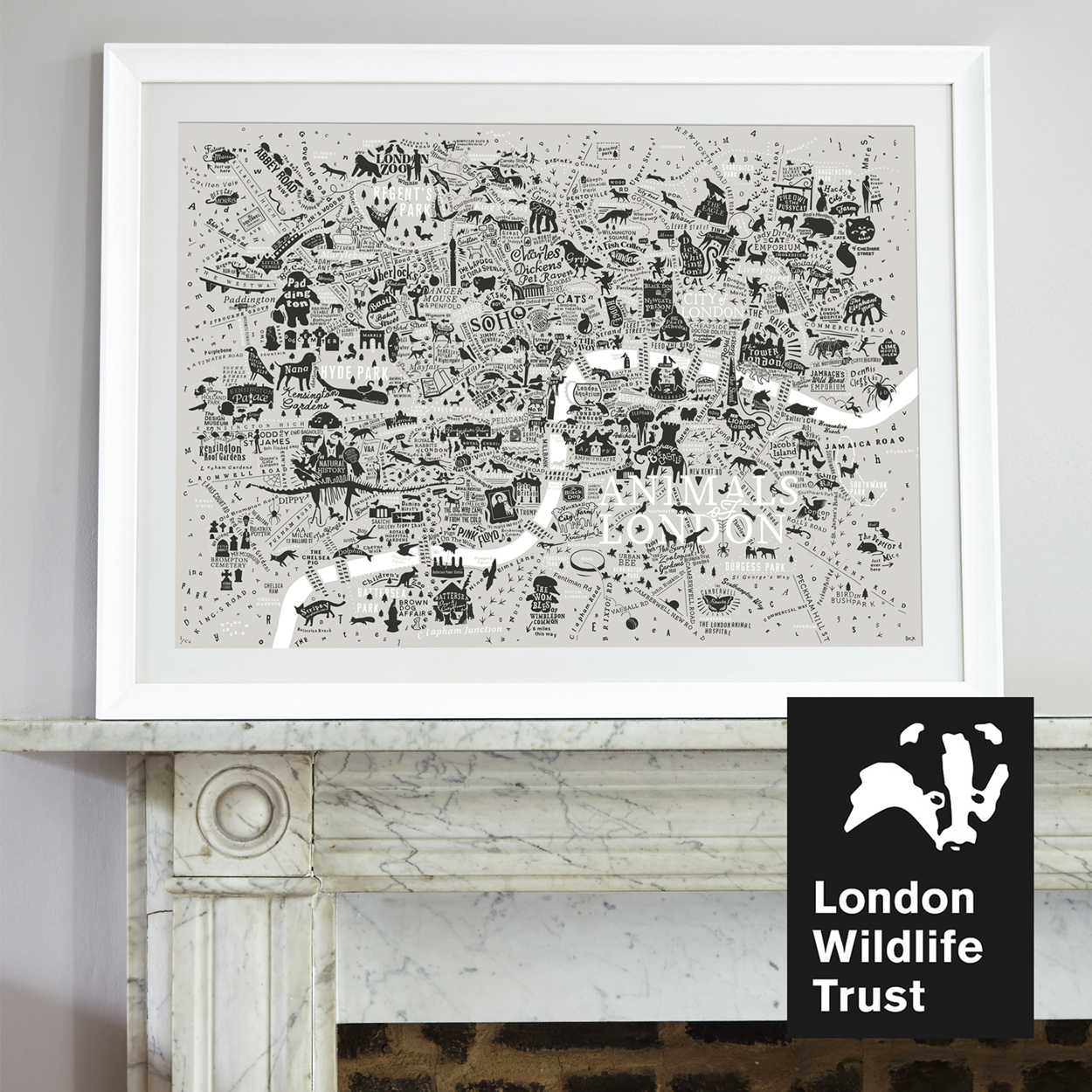
Maps Of London
I have been creating typographic maps of (mostly) London for over 8 years.  In 2012, I created The Literary London Map. The first of a pop-culture-themed trilogy of typographic maps of London Town. The Literary London Map was followed in 2015 by The London Film Map, and the trilogy was completed in 2018 with The Music Map of London. Each map celebrates the capital’s credentials as one of the world’s most iconic, cinematic and creative cities. From London’s legendary literary heritage and deep down music cool. Featuring novels, films and some of the best musicians in history, all plotted in the locations they are most famously associated. Each map is a labour of love, taking up to a year to complete.
During this period, my obsession led me to create a number of other typographic maps of my home town. Exploring London’s streets and pubs, a map of the bridges over the river Thames. My take on London’s underground tube map, and my latest piece, Animals Of London, packed with London’s creatures great and small.
My maps have been featured in Time Out, The Independent, The Evening Standard, among many others. On the front cover of the Japanese Brain Magazine, Buzz Feed, countless blogs, and in numerous map compendiums, including the Londonist’s Mapped book.
Animals Of London
First up, my latest piece. An illustrated typographic map of our capital, packed with creatures great and small. Plotting all the places you can find our furry, feathery or scaly friends, including zoos, parks, farms and museums. Animals from the pages of novels and history books, famous pets and animal landmarks, jostling for position with escaped tigers, chimpanzees and eagles. Think dog libraries, cat emporiums, hedgehog graffiti and pet cemeteries. And over a hundred dalmatians.
The Music Map Of London
Next, a dense typographic map jamming to the sound of London’s rich musical heritage. Bringing centre stage a heady, curated mix of music, musicians, songs and lyrics that make our Capital one of the most rocking cities in the world. Dig deep to enjoy discovering places made famous in song, songs about the city, and references to the places musicians were born, gigged, lived it up and partied, but also where they crashed and burnt or died. Spy the locations of iconic recording studios, music videos and famous album covers, Abbey Road, oversized inflatable pigs, Firestarters and Waterloo sunsets. Nine months of agonisingly detailed typography and research went into this unique journey into London’s lyrical underbelly.
The London Music Map
Framed type map of london
The London Music Map
The Literary London Map
A map of the capital featuring characters from the pages of novels based in London. The famous and infamous. And also the less well known. Those with an amazing moniker or brilliantly conceived nickname who are a credit to their creator. Each character has been plotted in the corners of the city they most liked to roam or chose to call home (sometimes at Her Majesty’s Pleasure).
The Literary London Type Map
A Limited edition typographic map of london
The London Film Map
An intricate hand-crafted typographic map of London swarming with film titles, actors and directors, plotted on the map where they most made their mark. Also featuring some of London’s most iconic picture houses, film studios and red carpet locations. Combining hand-drawn typography and illustration, celebrating the capital’s credentials as one of the world’s most iconic cinematic cities.
A cinematic map of London
London Film map framed
A cool map of London
A map of cinematic London
Storylines
London’s iconic tube map, transformed into a pit-stop journey through styles of storytelling, with the individual tube lines turned into storylines and genres of literature. The depths of the Northern Line have been made into the aptly named Horror Line. The Bakerloo Line coursing past Sherlock Holmes’s Baker Street becomes the Crime & Mystery Line. The pink trajectory of the Hammersmith & City is converted to the Romance Line. Stations falling on intersecting Storylines get a sub-genre cross over.
Creative London tube map art print
framed tube map print
Map of london's tube
Typographic Street Map Of London
Every Londoner has their favourite stomping ground. That little corner of the city that feels theirs. That you get to know like the back of your hand. This new art piece is a dense, typographic street map of Central London. Which was a whole year in the making. A painstakingly intricate and very almost accurate* hand-crafted type map of our beloved capital. Which is designed to actually be navigable. Find the road you live on, the street you hang out in or the patch you’re itching to move to. Use it to plot a new cycle route to work, or plan a day’s riverside hopping along the curved sweep of the Thames.
*I cannot be held responsible for any miscellaneous misdirections when following this map. London’s sheer density means I couldn’t include every single cut through and side street. So apologies in advance for any omissions and any lost-makings caused.
A typographic map of Greater London
london type map detail
map of london in a nice frame
Detail of a london map
london waterloo type map
The Great British Type Map
I did say at the top that these maps were ‘mostly’ of London. Well this one is an intricately crafted type map of the British Isles. Six painstaking months in the making, from Penzance to Thurso, Dublin up to Belfast, Cardiff and Swansea, Glasgow and Edinburgh. And of course, London.
Map Of Central London featuring literature
graphic map of london in a frame
detail of a typographic map of london
Central London Film Map
This next one is a smaller version of the London Film Map, swarming with film titles, actors and directors, plotted on the map where they most made their mark. Also featuring some of London’s most iconic picture houses, film studios and red carpet locations.
A stylish, framed creative map of london
stylish monochrome map of london